Teaching materials for
”motion type project workshop”
in NCTU.
交通大學應用藝術所
"漢字動態專案" 工作坊
補充教材
”motion type project workshop”
in NCTU.
交通大學應用藝術所
"漢字動態專案" 工作坊
補充教材
Typeface Category:
Modulate Serif Stroke
M I N G
Modulate Serif Stroke
MING
(SUNG)
U M B R E L L A
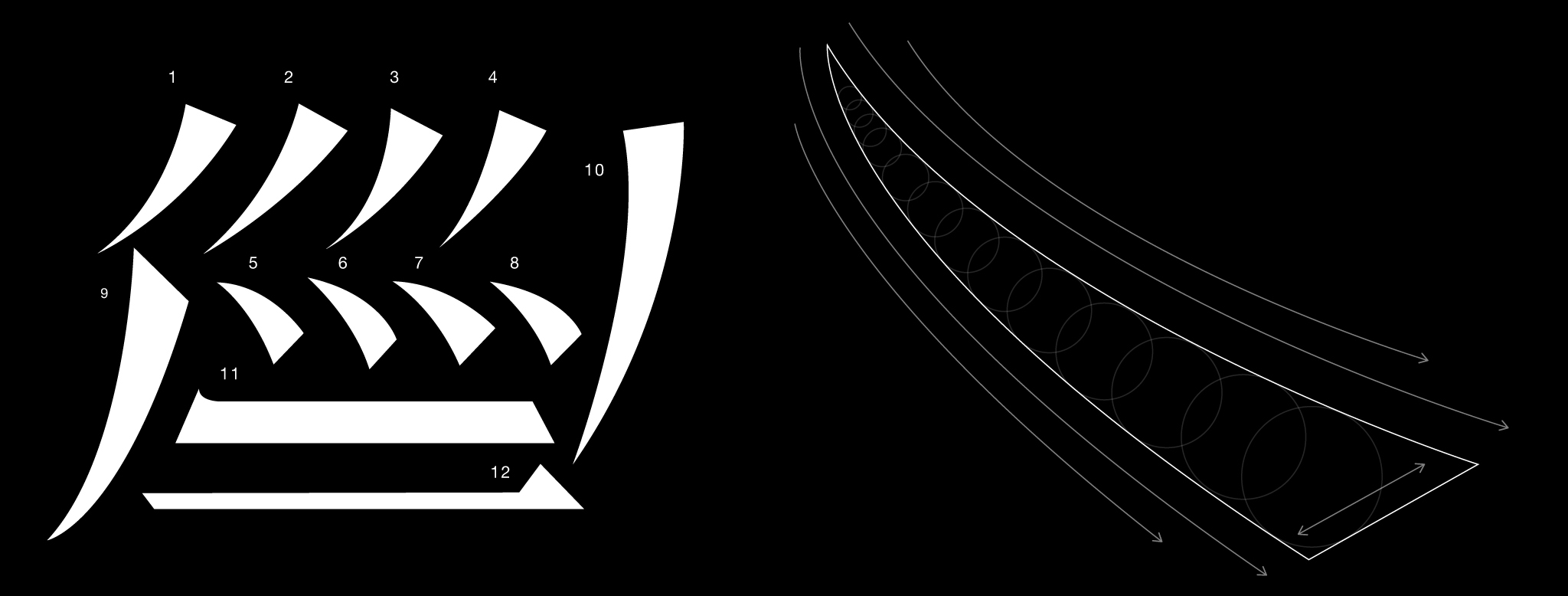
W A T E R
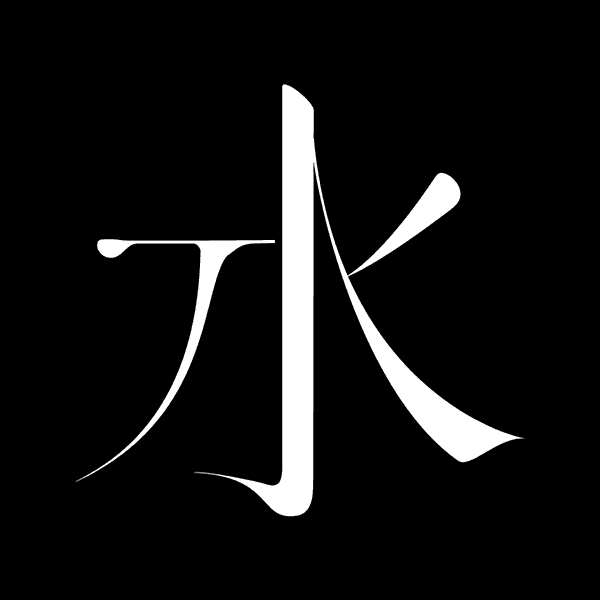
N O
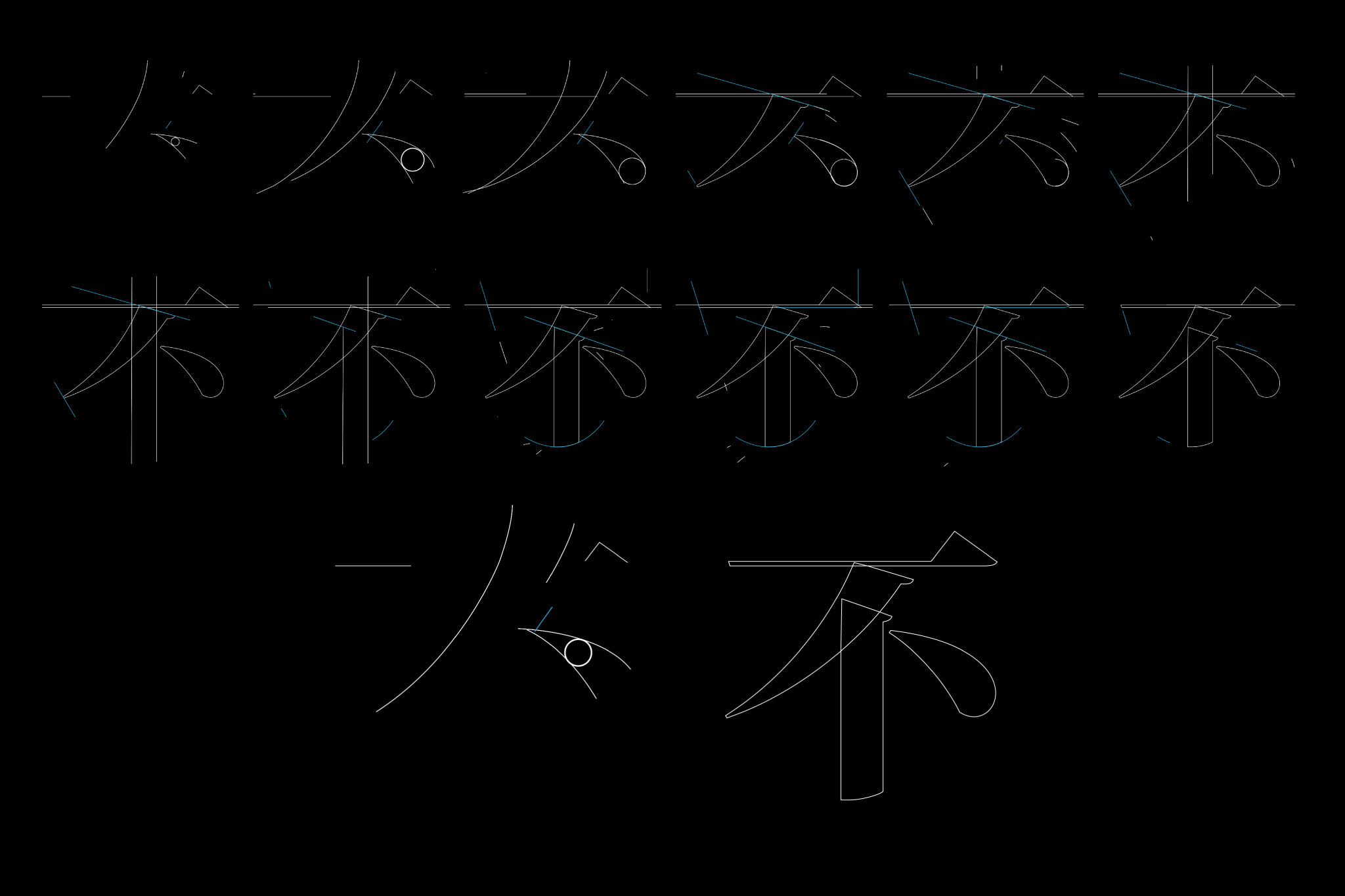
Teaching materials for
”motion type project workshop”
in NCTU.
交通大學應用藝術所
"漢字動態專案" 工作坊
補充教材
”motion type project workshop”
in NCTU.
交通大學應用藝術所
"漢字動態專案" 工作坊
補充教材
Typeface Category:
Monolinear Sans-Serif Stroke
H E I
Monolinear Sans-Serif Stroke
HEI
(GOTHIC)
F R A M E
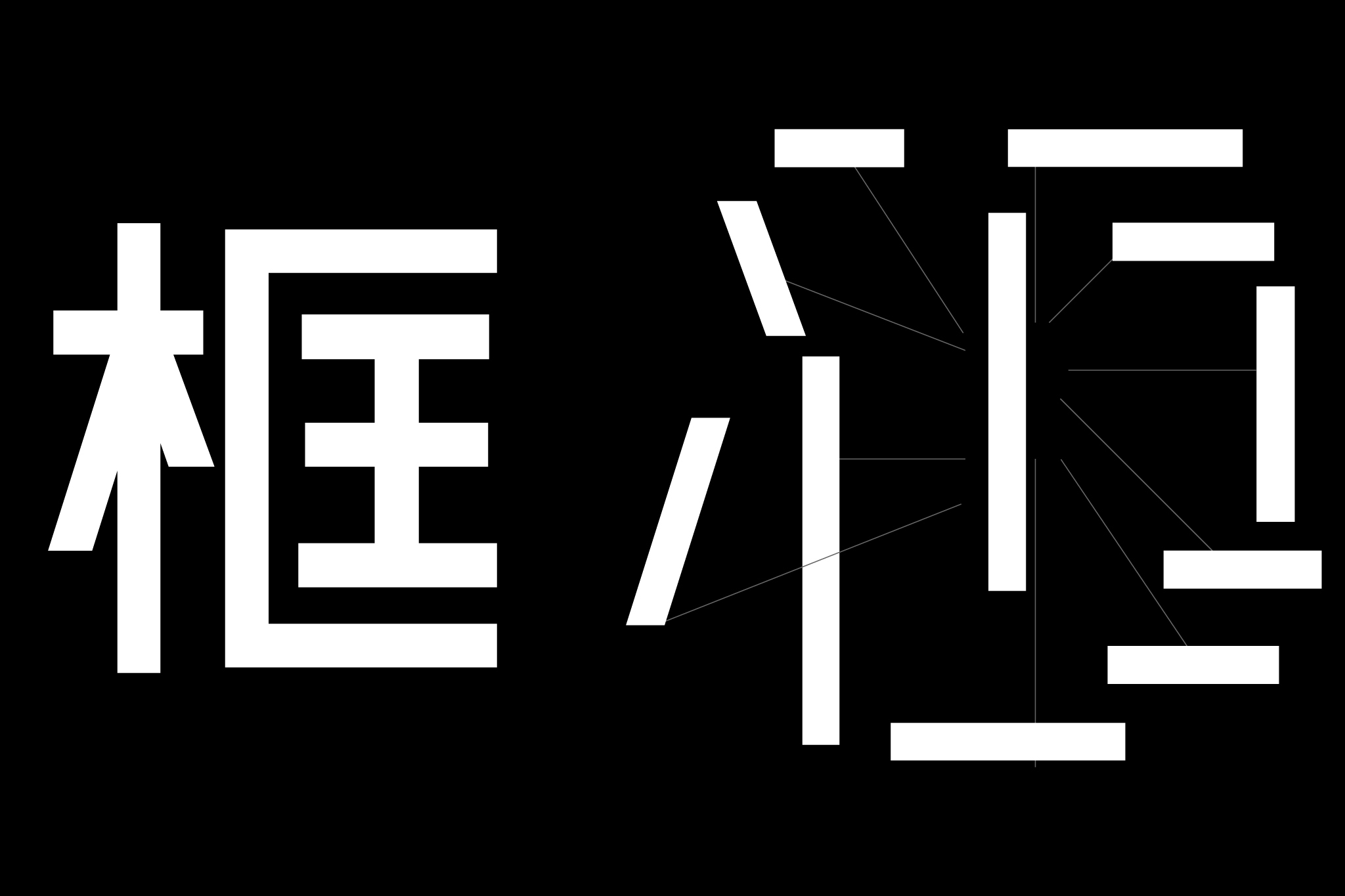
L I G H T
C U T
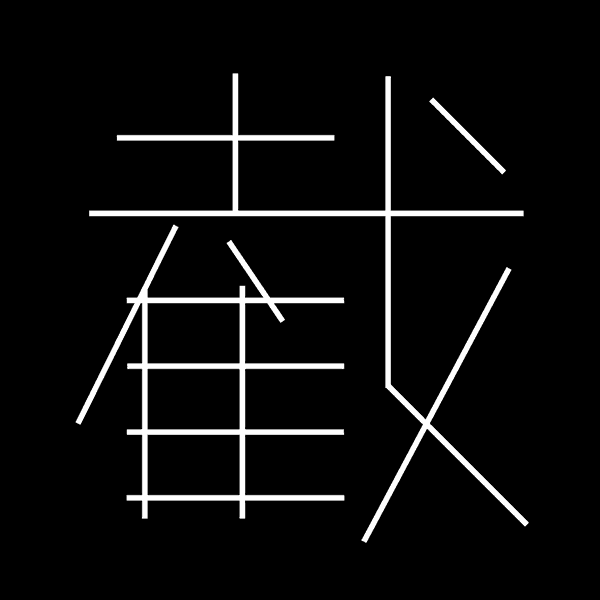
Teaching materials for
”motion type project workshop”
in NCTU.
交通大學應用藝術所
"漢字動態專案" 工作坊
補充教材
”motion type project workshop”
in NCTU.
交通大學應用藝術所
"漢字動態專案" 工作坊
補充教材
Typeface Category:
Round-Hand Sans-Serif Stroke
Y U E N
Round-Hand Sans-Serif Stroke
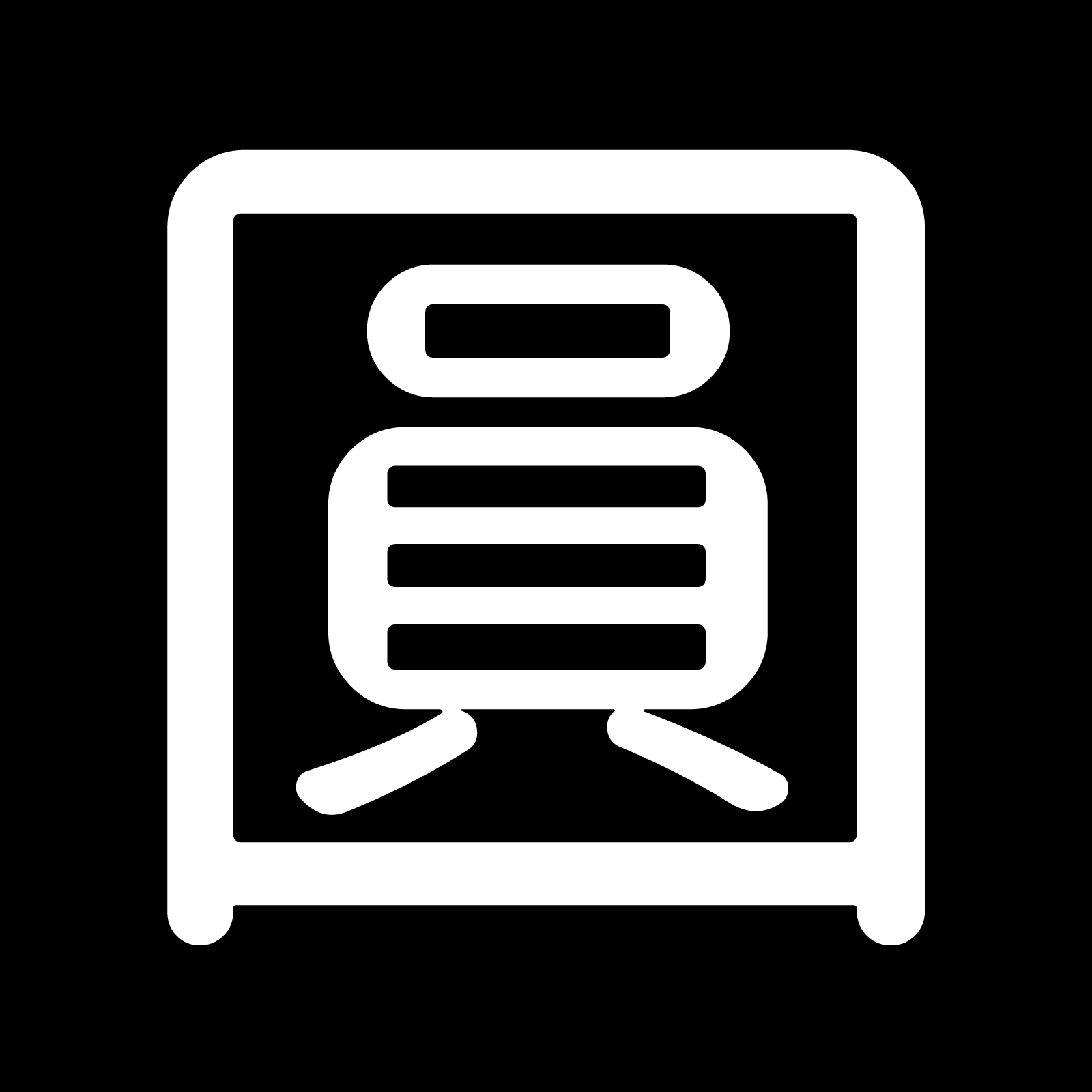
YUEN
(ROUND)
U M B R E L L A
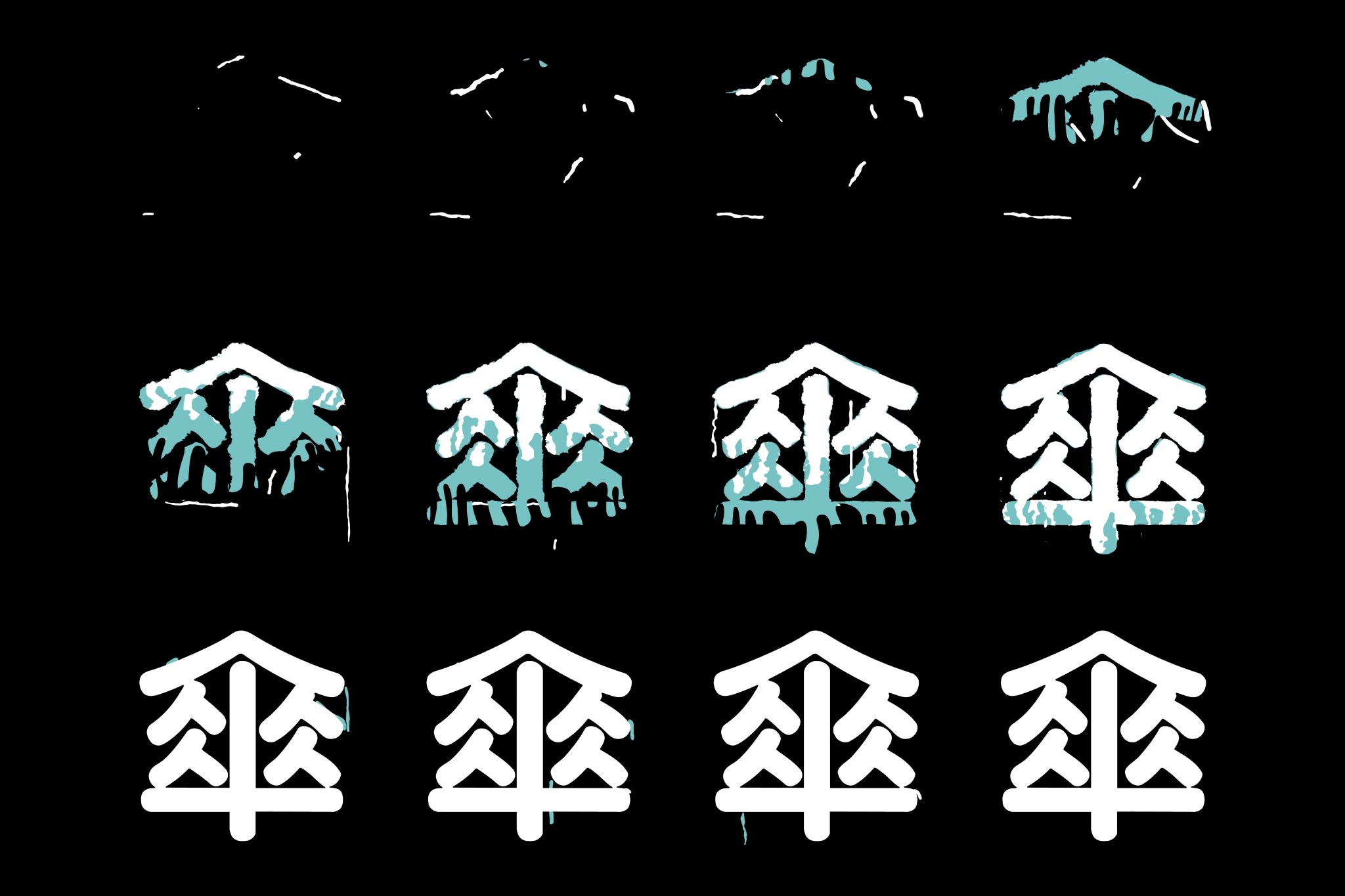
C H A I N
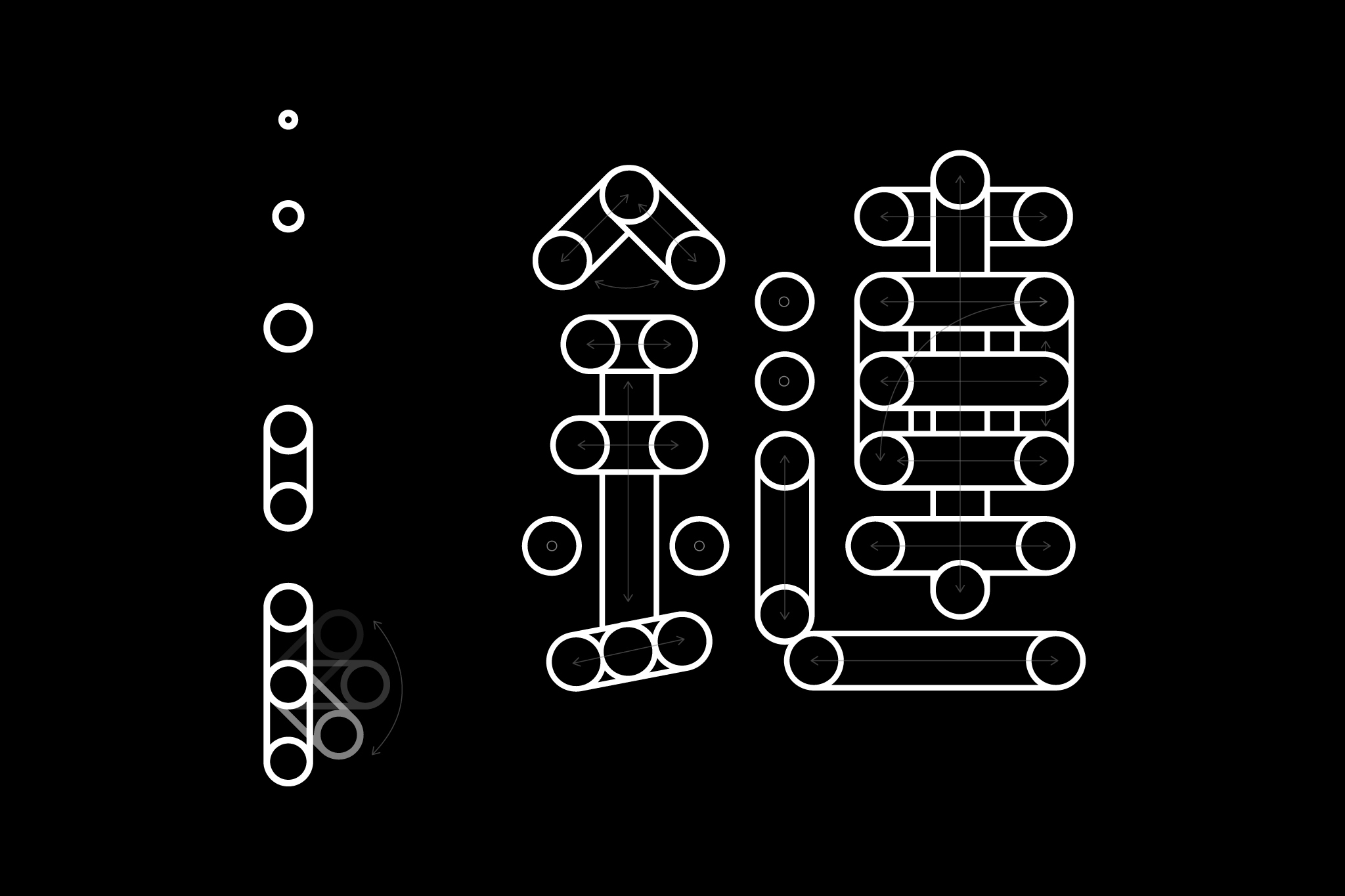
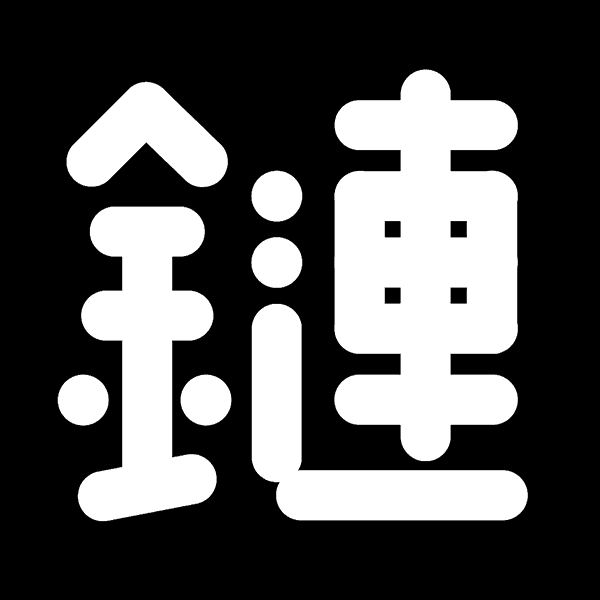
B O U N C E
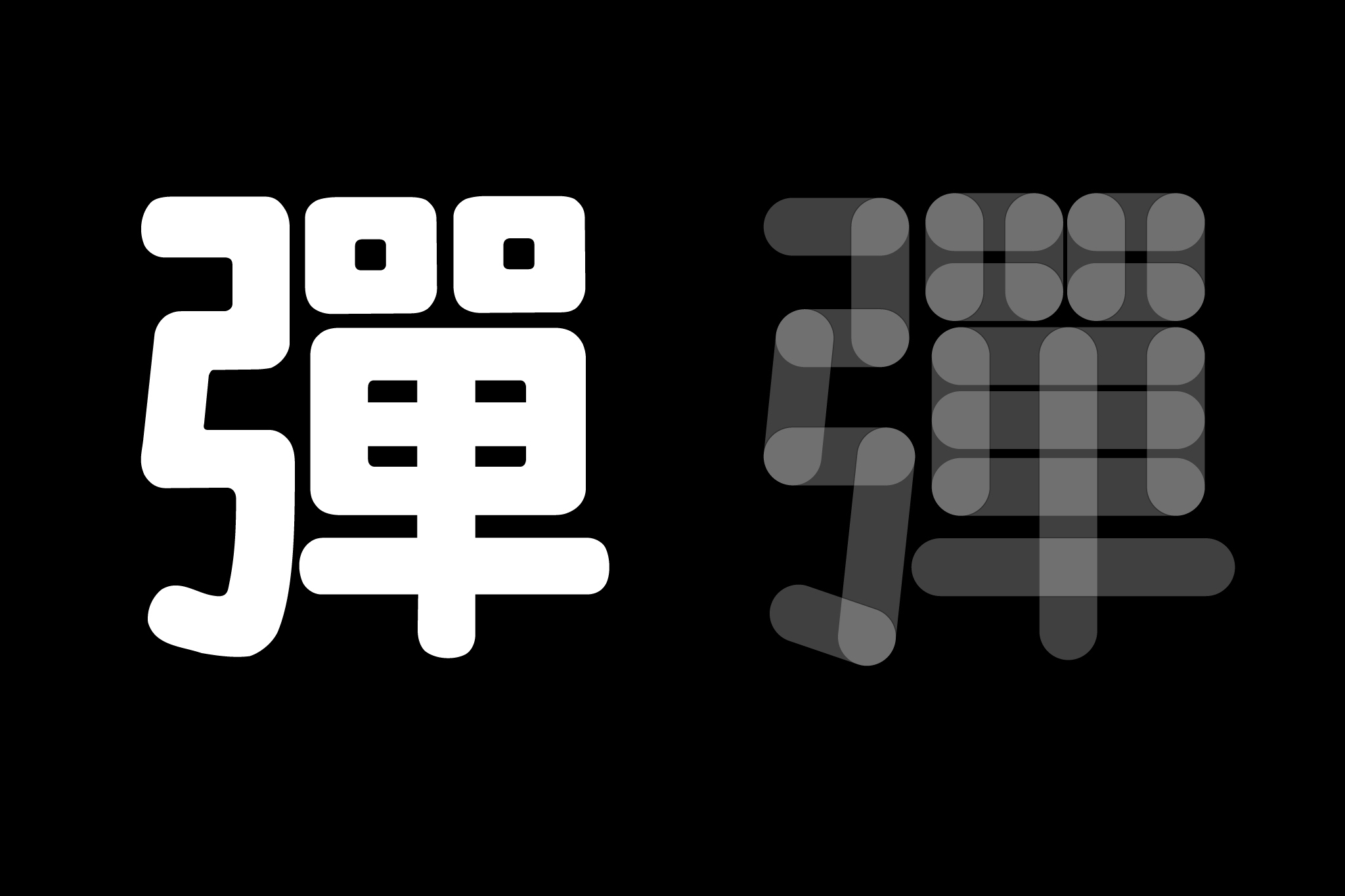
Teaching materials for
”motion type project workshop”
in NCTU.
交通大學應用藝術所
"漢字動態專案" 工作坊
補充教材
”motion type project workshop”
in NCTU.
交通大學應用藝術所
"漢字動態專案" 工作坊
補充教材
Typeface Category:
Traditional Script Style
W R I T T E N
Traditional Script Style
WRITTEN
(SCRIPT)
W I N D
F L A M E
C O R N
J A D E
N I G H T
F U R
Teaching materials for
”motion type project workshop”
in NCTU.
交通大學應用藝術所
"漢字動態專案" 工作坊
補充教材
”motion type project workshop”
in NCTU.
交通大學應用藝術所
"漢字動態專案" 工作坊
補充教材
Typeface Category:
Graphical and Strong Personality
G R A P H I C
Graphical and Strong Personality
GRAPHIC
(STYLISH)
D O T
S O U N D
B O R N
F R A C T A L
G O L D
B U I L D
Teaching materials for
”motion type project workshop”
in NCTU.
”motion type project workshop”
in NCTU.
交通大學應用藝術所
"漢字動態專案" 工作坊
補充教材
R F L E C T
(SYMMETRY)
R O U N D
E A S T
S U B